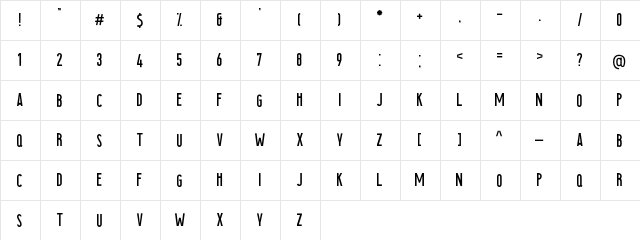
Searocks Regular
Design Context for Searocks Typeface
Searocks takes a measured approach to typography — its balanced proportions and neutral character make it a reliable workhorse for both digital and print work.